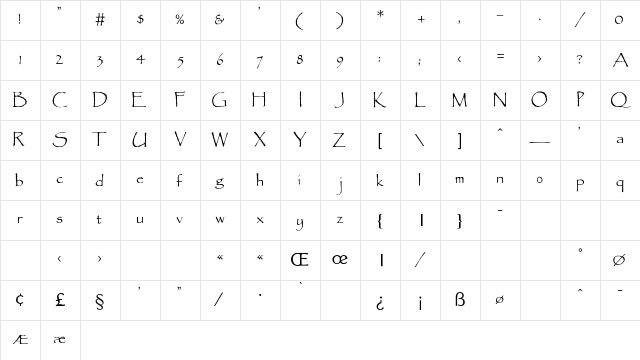
Papyrus Normal Free Font
Papyrus Normal
Papyrus Family
Complete Papyrus Normal glyph index. Displaying only characters natively supported by Papyrus Normal font.
Design Context for Papyrus
Papyrus is a composed and adaptable typeface that performs quietly and consistently across a wide range of design contexts.